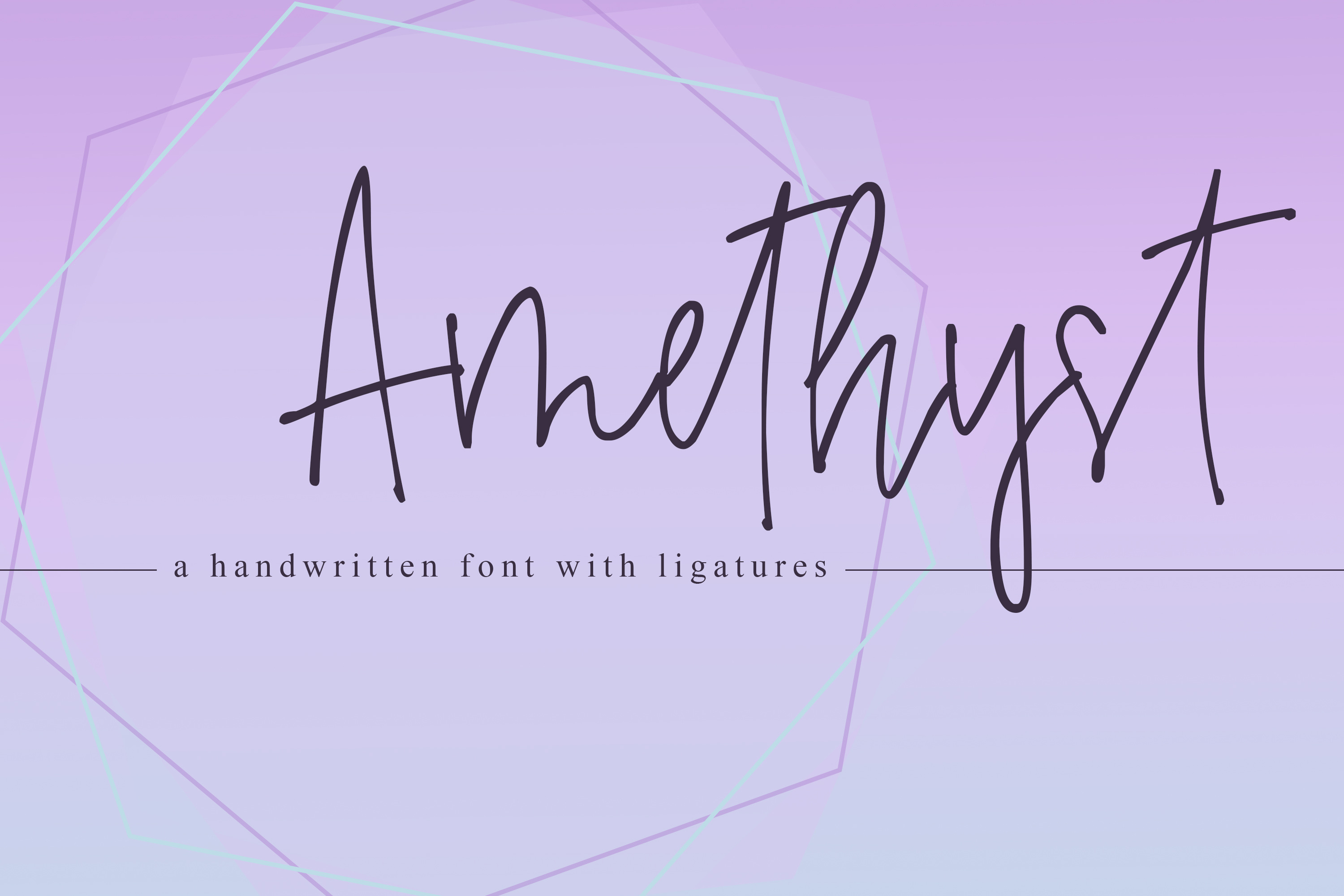
Amethyst | A Signature Font
Amethyst is a delicate, handwritten font with fun ligatures. This font is designed to look just like an easy handwriting, did I succeed? This font pairs lovely with a serif font for all your designing needs, including:
- Uppercase Characters
- Lowercase Characters
- A handful of ligatures